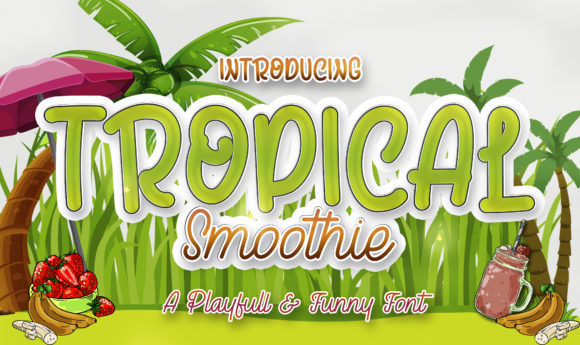
Tropical Smoothie Font
Journey to a tropical oasis where hand-lettered beauty dances across your designs. Tropical Smoothie Font, a creation of Lettercorner Studio, is not just a font; it's a mood, a vibe, a sensation that elevates your digital creations to dizzying heights.
This sweet and friendly handwritten font captivates with its natural and unique style, a stroke of genius that blends seamlessly into a myriad of designs. Whether you're crafting logos, branding materials, website headers, or social media graphics, Tropical Smoothie Font is your secret weapon, your gateway to visual enchantment.
With its easy-going nature, this script font invites you to explore a world of creativity. Imagine your brand adorned with Tropical Smoothie's charming touch, a logo that dances with personality, a website header that radiates warmth and allure. This font is your passport to a world where every letter is a work of art, every word a captivating story.
But Tropical Smoothie Font isn't just visually stunning; it's also incredibly versatile. Its inherent charm shines through in wedding invitations, greeting cards, posters, and flyers, adding a touch of whimsy and sophistication to any project. It's the perfect companion for crafting social media posts that pop, Instagram stories that captivate, and Pinterest pins that inspire.
So, why settle for ordinary when you can bask in the splendor of Tropical Smoothie Font? Dive into a realm of visual delight, where every design tells a story, every letter evokes emotion. Let Tropical Smoothie Font be your muse, your creative compass, as you embark on a journey of design brilliance.